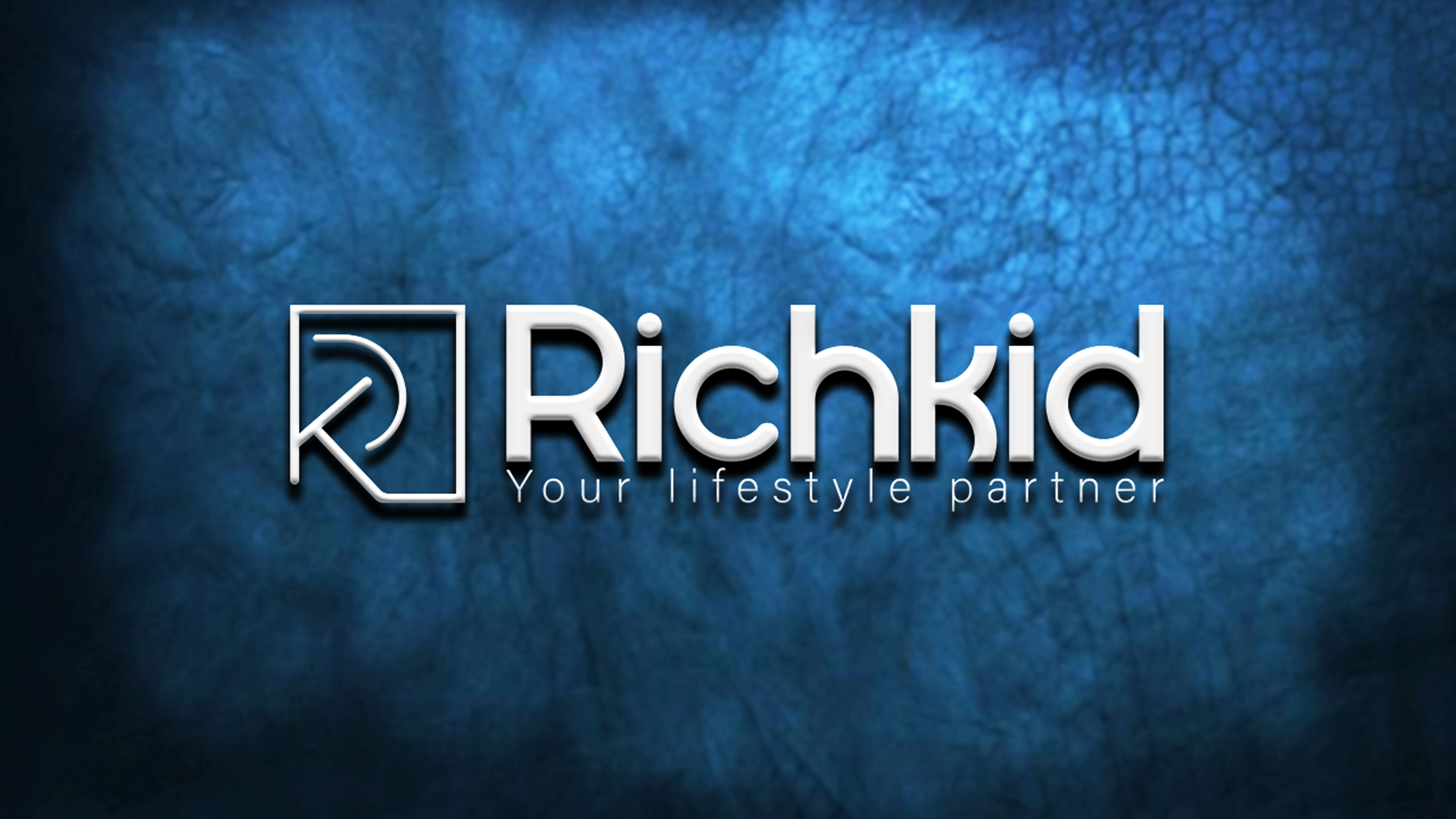
Fashion Brand Logo | Richkid Logo | Minimal and Custom font Logo
This a Logo for Richkid. which is a Fashion and clothing brand. I used Adobe Illustrator to make this logo and Adobe Photoshop for Mockup. I used free mockup from Freepik. I make custom font to show the word "RICHKID". and make a Icon, represents the letter RK. It is a minimal logo.